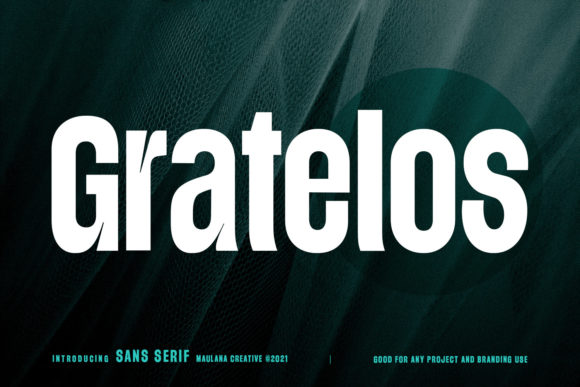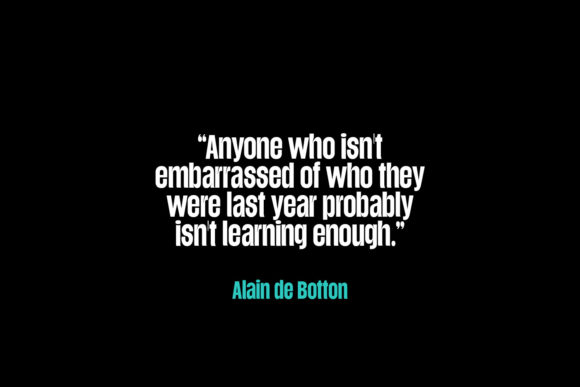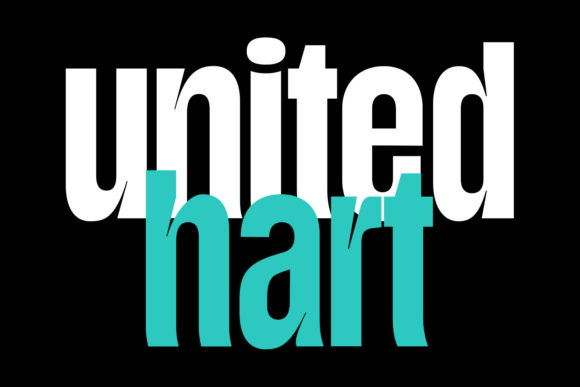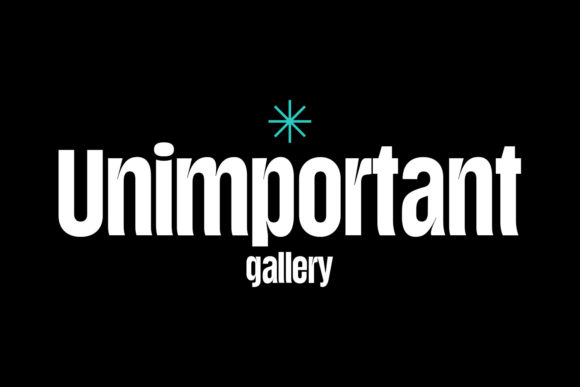
Gratelos Font: Bold Sans Serif for Logo Design & Social Media Branding
About the Gratelos Font
The Gratelos Font offers a perfect balance of form and function for your design needs. Gratelos is a modern sans serif font with a condensed bold stroke, fun characters, and unique ligatures. This font is good for logo design, Social media, Movie Titles, Books Titles, short text, even long text. Make stunning work with Gratelos!
Gratelos’s bold, condensed forms excel in headlines, short impactful statements, and branding applications where a strong, confident presence is desired. It’s ideal for posters, logotypes, and short-form social media content. However, its condensed nature makes it less suitable for body text or lengthy paragraphs; readability suffers at smaller sizes. Avoid using it in UI elements or situations requiring extensive text blocks.
The playful yet sophisticated character of Gratelos pairs well with a variety of fonts. For a balanced contrast, consider pairing it with a clean, neutral sans-serif like Lato for body copy, or a classic serif like Garamond for a touch of elegance. A geometric sans-serif, such as Montserrat, provides a modern counterpart, enhancing Gratelos’s energetic feel.
Gratelos possesses a personality best described as bold and playful, yet sophisticated. It’s a strong choice for brands projecting confidence and creativity, suitable for projects in the entertainment, fashion, or technology sectors where a modern and energetic aesthetic is paramount.
Gratelos Font Usage Examples
Gratelos Font Example